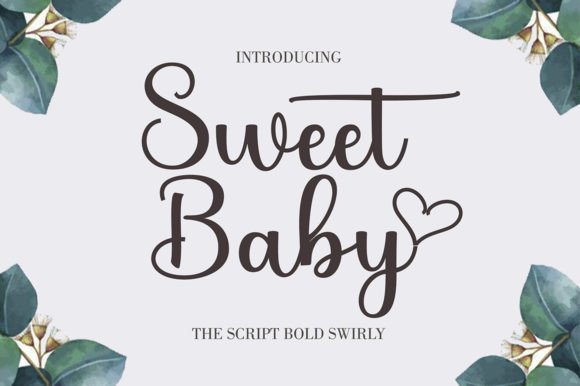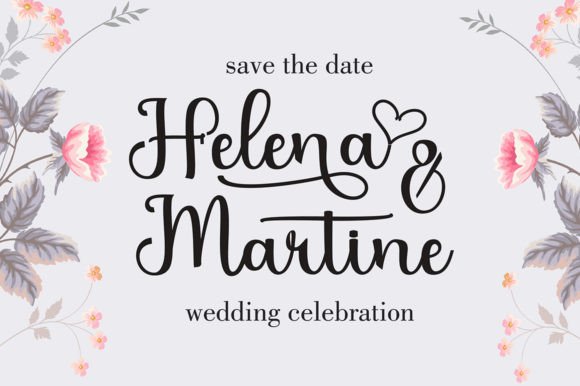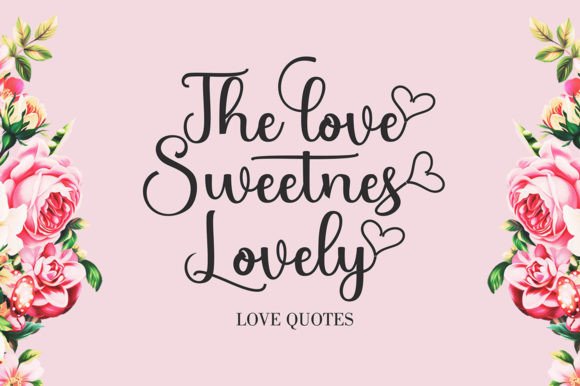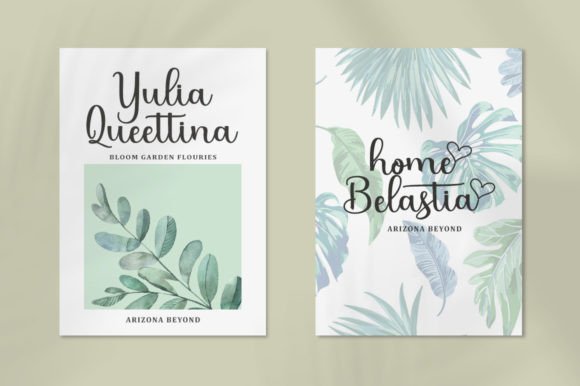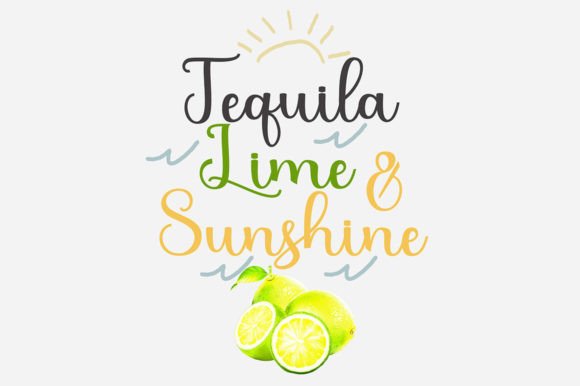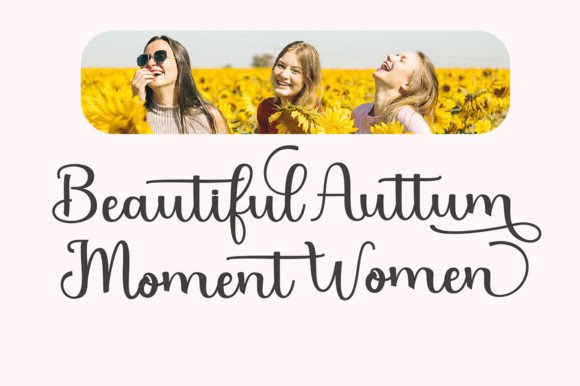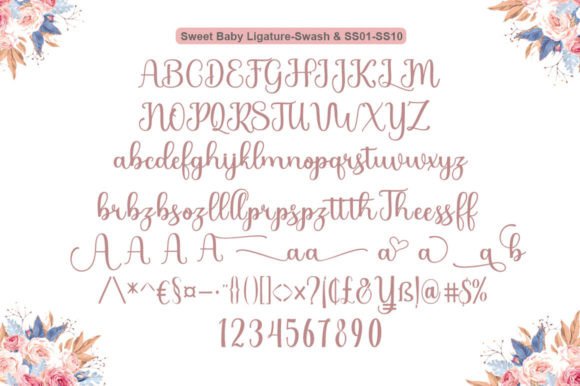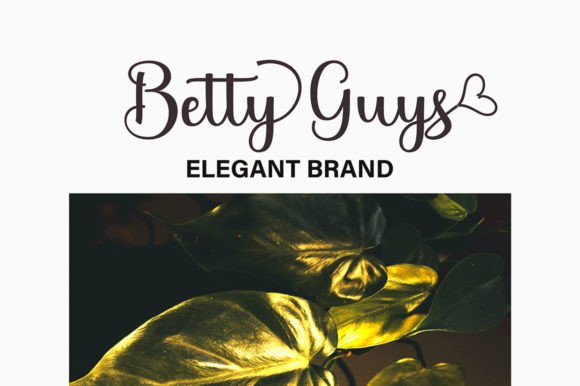
Sweet Baby Script Modern Calligraphy, the newest you can get now! With an updated hand calligraphy model with special glyphs that have been given a combination of fantasy and handwritten ink. This font will look beautiful on all designs, Wedding designs, branding materials, blog titles, quotes and invitations, business cards.
OpenType includes:
– Alternative Styles
– Set styles